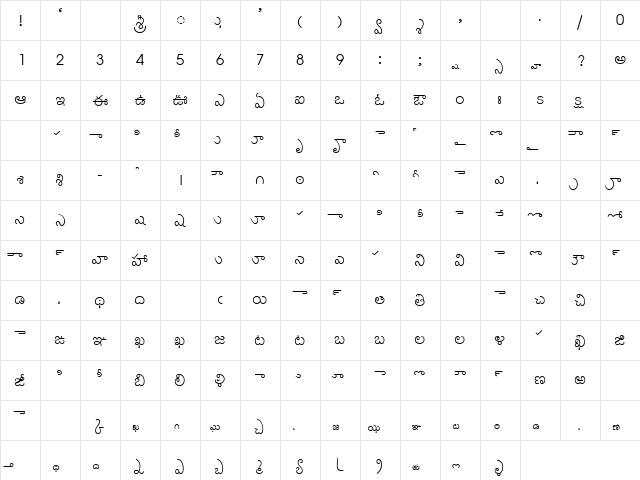
TL-TTHemalatha Normal
Design Context for TL-TTHemalatha Typeface
TL-TTHemalatha takes a measured approach to typography — its balanced proportions and neutral character make it a reliable workhorse for both digital and print work.